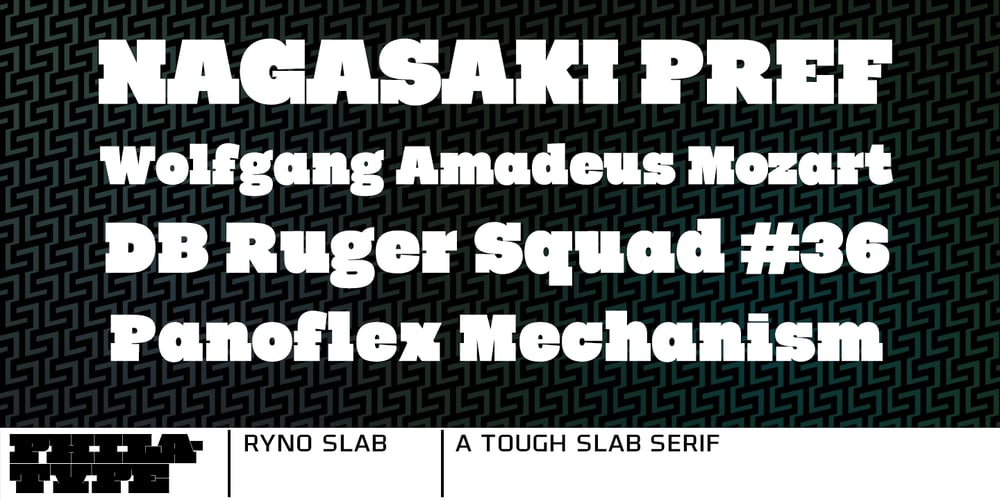
Ryno Slab
Ryno Slab font
Ryno Slab Font Family was designed by Kosal Sen and published by Philatype. Ryno Slab contains 1 styles and family package options. Ryno Slab is a superslab that was born out of a need for an aggressive, heavy, geometric display face that did not appear clunky. Its serifs are so thick, you could create reasonably legible word shapes by using all caps and masking the words out. Ryno Slab’s tough geometric exterior and squarish forms make it suitable for tight setting in posters, t-shirts, and artwork. Also, an extended character set with support for European languages make Ryno Slab a good fit for magazine headlines.